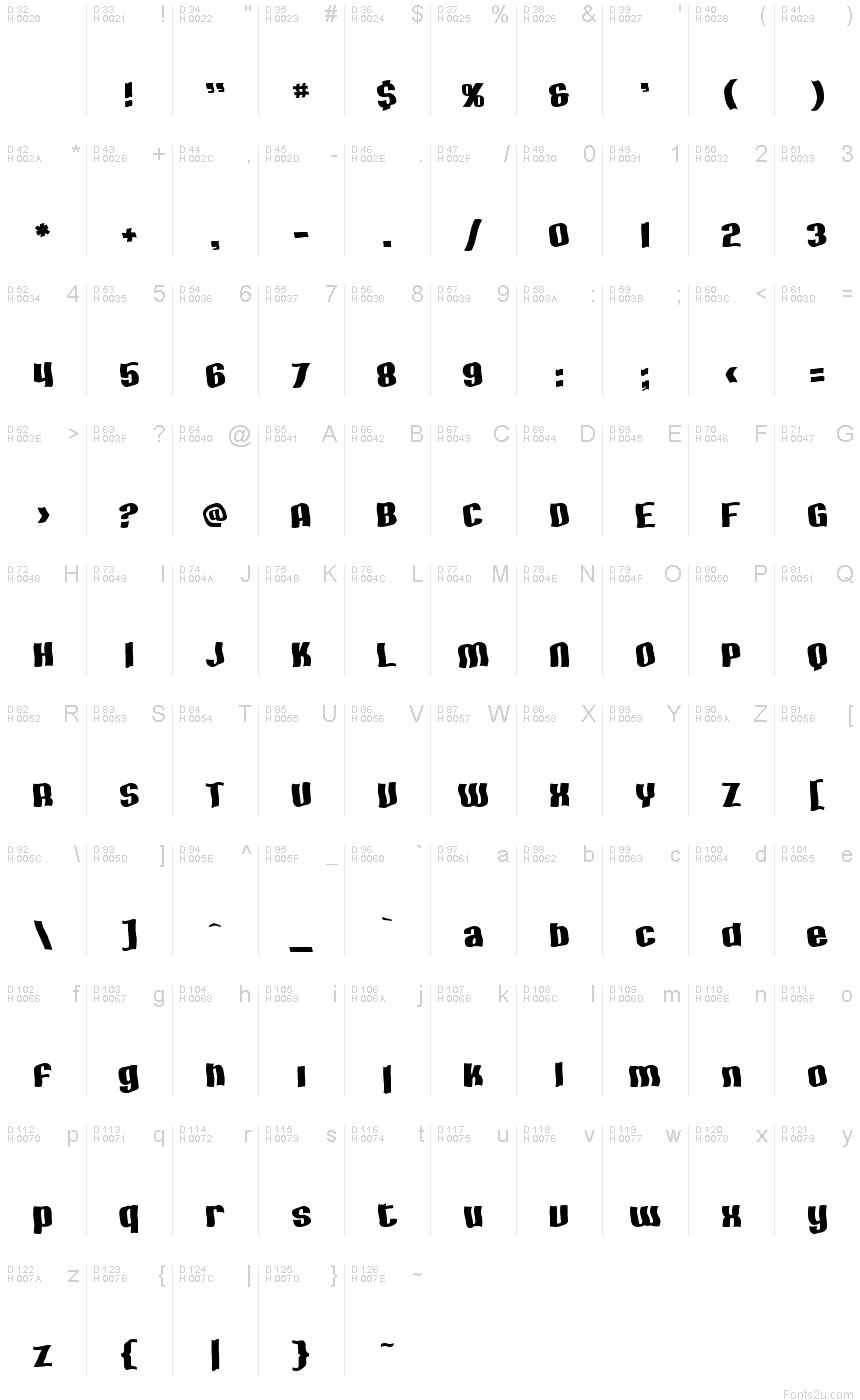
SF Hallucination
SF Hallucination by ShyFoundry is a free distorted display font with a woozy, poster-era swagger. The letters bulge, lean, and wobble as if seen through heat or a daydream, with heavy black shapes and soft, uneven curves that make the whole alphabet feel playful rather than aggressive.
It fits music flyers, Halloween party promos, comic cover lines, surreal title cards, and offbeat packaging where a free font can do something louder than a straight display cut. Use it when you want short words to feel rubbery and unstable, because the shifting silhouettes give even simple lettering a trippy pull.